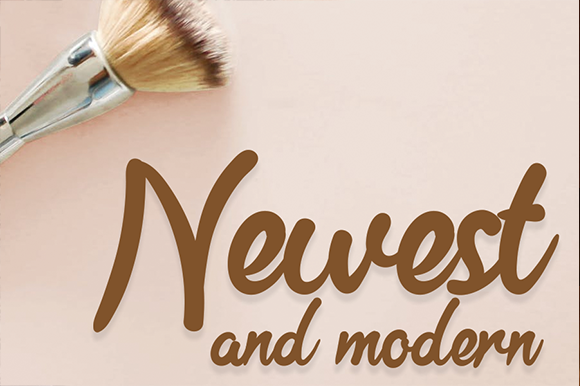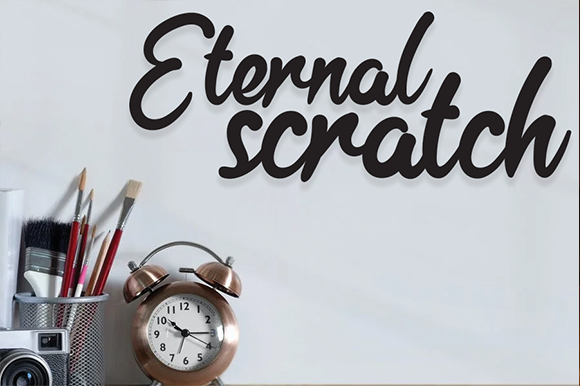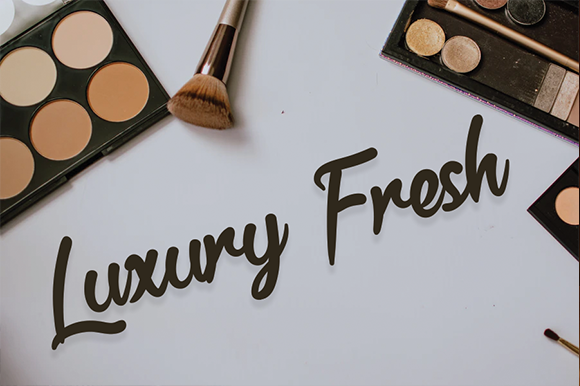
Introduction to Brush Creeping Font
You know that feeling when you’re working on a creative project, and you stumble upon a design resource that makes everything click? For me, it was when I discovered the Brush Creeping Font. This gorgeous handwritten font is the perfect combination of a brush pen and pencil, giving it a unique, authentic touch that’s hard to resist.
As a designer, I can attest that finding the right font can make all the difference in bringing a project to life. And when it comes to the Brush Creeping Font, its high-quality, transparent background makes it a versatile design resource that’s perfect for a wide range of creative projects. From DIY crafts to digital designs, this font is sure to add a touch of personality and whimsy to any project.
Key Features of Brush Creeping Font
- Unique, hand-drawn style with a touch of imperfection, perfect for creative projects requiring a personal touch.
- Available in a high-quality, transparent background, allowing for seamless integration into designs.
- Its distinctive, creeping brush strokes add a creative and dynamic element to any design, making it an ideal choice for designers seeking to add a unique touch to their work.
- Can be easily customized and manipulated to fit the needs of your specific design project, making it a versatile design resource.
Honest Review: Brush Creeping Font
As a designer, I’m always on the lookout for high-quality design resources to enhance my creative projects. Recently, I stumbled upon the Brush Creeping Font, and I must say, it’s been a great addition to my design arsenal.
What works well about this font is its unique, hand-drawn style. The Brush Creeping Font features a beautiful, organic look that’s perfect for projects that require a more personal touch. The font is also highly customizable, allowing me to easily adjust the size, color, and opacity to fit my design needs.
- ✨ Unique, hand-drawn style that adds a personal touch to creative projects
- ✨ Highly customizable, making it easy to adjust to different design needs
One limitation of the Brush Creeping Font is that it doesn’t come with a transparent background option, which can be a bit of a hassle when working with complex designs.
Overall, I’m really impressed with the Brush Creeping Font. It’s a great design resource that’s perfect for anyone looking to add a personal touch to their creative projects. While it may have some limitations, the benefits far outweigh the drawbacks.
Brush Creeping Font
Tips for Getting the Most Out of Brush Creeping Font
For the best results, use the Brush Creeping Font in conjunction with other design elements, such as illustrations or graphics. Experiment with different font sizes and colors to create a unique look. You can also use the font’s transparent background to create custom, layered designs.
The Brush Creeping Font is perfect for a variety of creative projects, including invitations, posters, and social media graphics. Its unique, hand-drawn feel makes it ideal for adding a touch of personality to your designs. You can also use the font in business presentations and reports to add a touch of professionalism and creativity.